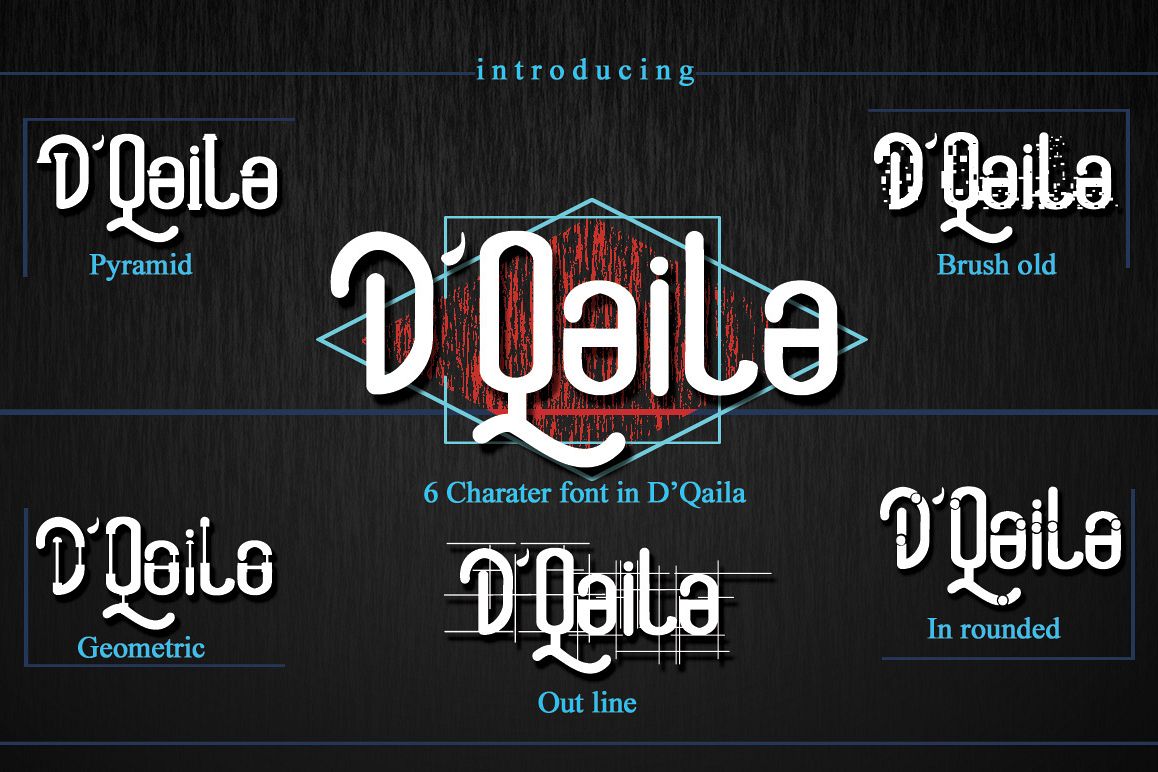
D'Qaila
D'Qaila Calligraphy combination sans serif ,as designed by handwriting, and it has a modern and unique forms of calligraphy, the writing style is very natural and multiple language support.
the font is ideal for quotes, logos, clothing, advertising, wedding invitations and packaging design and labels.